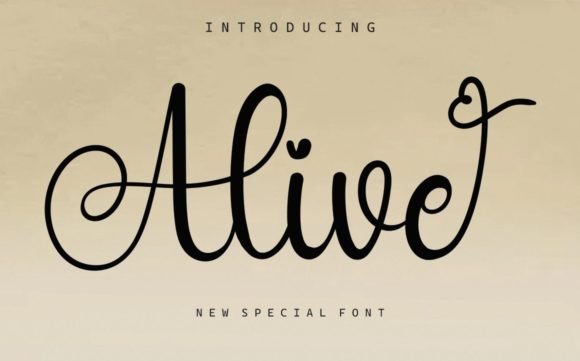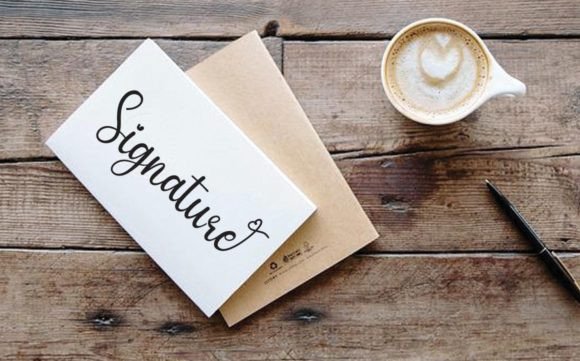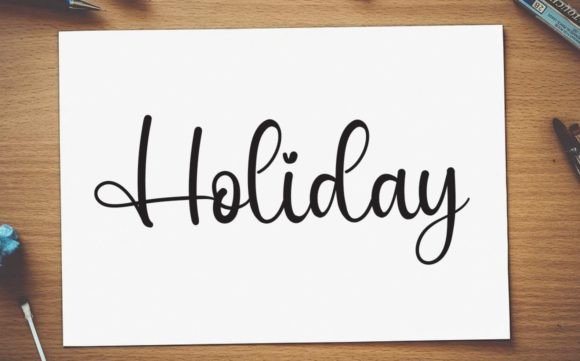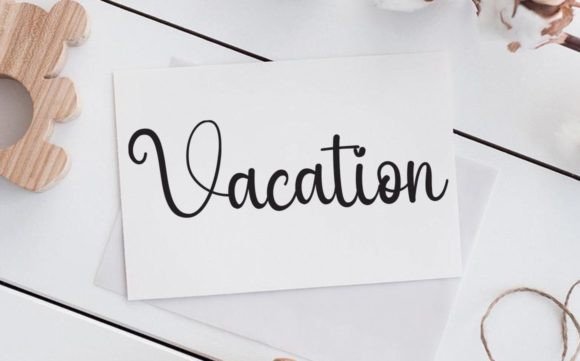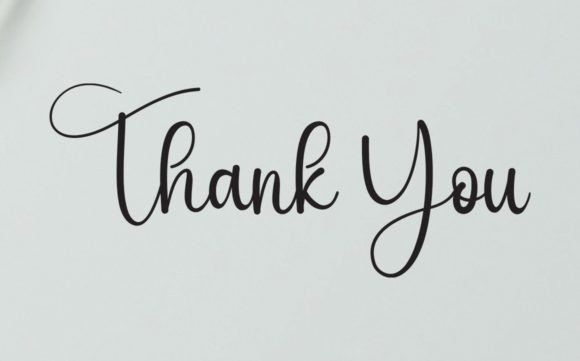
Alive Font
About Alive Font
“Alive” is an enchanting handwritten font that brings a captivating and romantic feel to your designs. Its versatility spans a wide spectrum of applications, making it suitable for everything from greeting cards to headlines. With its unique charm, “Alive” is sure to infuse your next project with a touch of enchantment.
The enchanting quality of “Alive” is evident in its handwritten style, which adds a personal and whimsical touch to your text. The flowing characters and distinctive charm make it an ideal choice for various design contexts where a romantic and captivating atmosphere is desired.
The font’s versatility shines as it seamlessly adapts to different applications. Whether you’re crafting heartfelt greeting cards or designing attention-grabbing headlines, “Alive” enhances your text with a romantic allure, resulting in a visually appealing and engaging outcome.
“Alive” is well-suited for projects aiming to evoke emotions and create a connection with the audience. The font’s charm introduces a delightful element to your designs, making them memorable and inviting.
In essence, “Alive” goes beyond being just a font; it’s a design asset that injects enchantment and romance into your creative projects. Embrace its handwritten allure and witness how it transforms your greeting cards, headlines, and more into artistic expressions that resonate with a romantic and captivating feel. Let “Alive” be the magical element that brings your next design endeavor to life, leaving a lasting impression on those who encounter it.